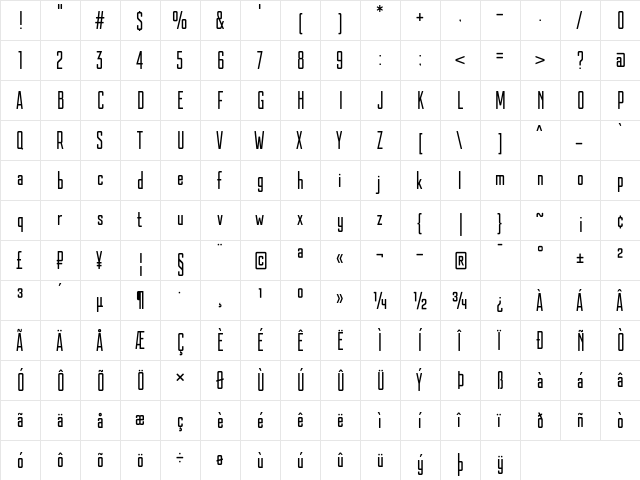
Kazmann Sans Regular
| Foundry | Tatiana Biserova & Jovanny Lemonad |
| Designer | Tatiana Biserova & Jovanny Lemonad |
Design Context for Kazmann Sans Typeface
Kazmann Sans is a composed and adaptable typeface that performs quietly and consistently across a wide range of design contexts.
Pro Tip: Use Kazmann Sans in both headline and body roles to test its range before committing to a single application.